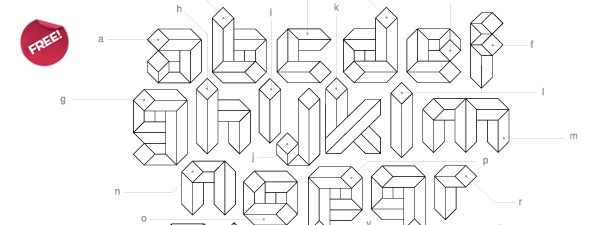
Quad Light, designed by Svetoslav Simov, is a free 3D geometric display font built from angular, ribbon-like strokes. Faceted corners and inset linework make the letters resemble folded paper forms, with a light outline keeping the construction airy.
Poster titles are its strongest setting, especially for technology events or experimental music. It also suits game graphics and merchandise with an architectural or puzzle-inspired theme. Across these uses, the repeated folds turn lettering into an illustrated object rather than ordinary type.
Quad Light